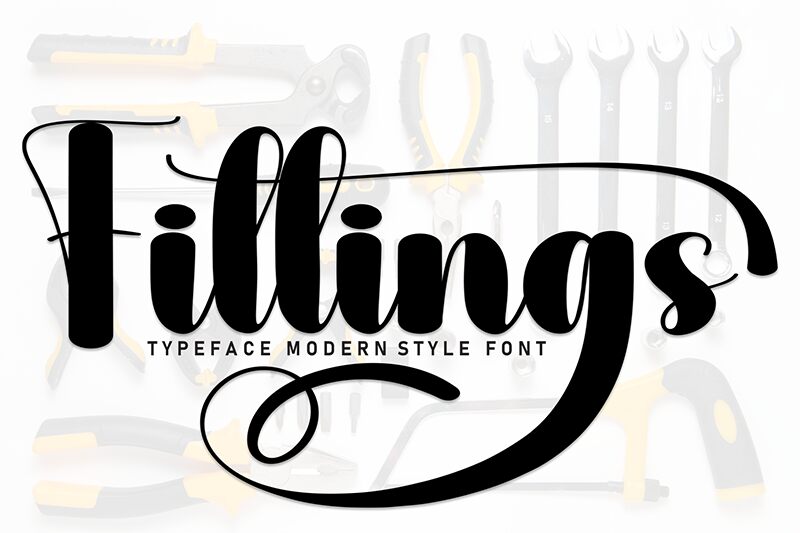
Fittings
Fittings font by Andi Moz is a decorative work that combines elegance with an expressive contemporary flair. Flowing, naturally irregular lines and shapes are found in each character; brushes can easily be visualized drawing every line of this font set. This bold font delivers good legibility at both small and large sizes making it suitable for varied design situations.